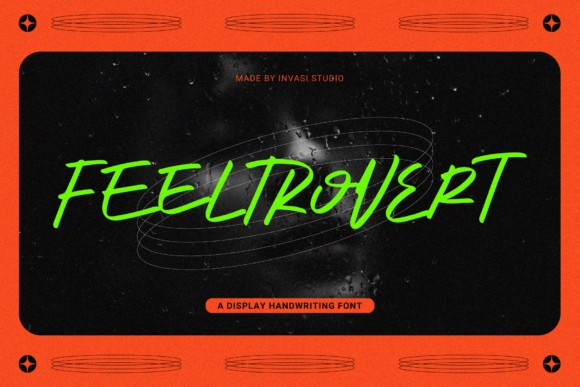
Discover the Perfect Touch with Feeltrovert Font
Have you ever been stuck in front of your computer, staring at a blank page, desperately trying to find the right words to bring your design to life? It’s a feeling many creatives know all too well. But what if you could give your projects that extra oomph, that special something that sets them apart from the rest?
Enter Feeltrovert Font, a stunning and elegant handwritten font that’s guaranteed to add an eye-catching effect to any project. With its stylish and modern glyphs, Feeltrovert Font is the perfect addition to any designer’s toolkit. Whether you’re a seasoned pro or just starting out, this versatile font is sure to help you create designs that truly stand out.
What makes Feeltrovert Font so valuable to designers is its unique ability to add a touch of sophistication and elegance to even the most simple of projects. With Feeltrovert Font, you can create designs that are both modern and timeless, perfect for a wide range of applications.
Feeltrovert Font Key Features
- Unique Characteristics: The Feeltrovert Font features a unique, hand-drawn aesthetic with dynamic lines and subtle texture, making it perfect for creative and artistic applications
Designer Review: Feeltrovert Font
First impressions are everything, and Feeltrovert Font has definitely caught my eye. I love the unique, expressive style that feels both playful and sophisticated. The intricate details and bold brushstrokes evoke a sense of creativity and freedom ✨. The font is perfect for designers looking to add a touch of personality to their projects, and I can see it working beautifully in branding, packaging, and digital design.
However, there are a few limitations to consider ⚠️. The font is not ideal for large blocks of text, as the strokes can become blurry and difficult to read. Additionally, the font may not be suitable for designs that require a lot of precision and accuracy, as the irregularities in the strokes can make it challenging to achieve a clean, even look.
Overall, I’m impressed with Feeltrovert Font’s unique style and potential for adding a touch of whimsy to designs. While it may have its limitations, it’s definitely a font that stands out from the crowd ✨. I would recommend it for designers who want to add some personality and flair to their work.
- Unique, expressive style
- Perfect for branding, packaging, and digital design
- Not ideal for large blocks of text
- May not be suitable for designs requiring precision and accuracy
Tips for Getting the Most Out of Feeltrovert Font
Feeltrovert Font is perfect for creative and artistic projects. To get the most out of it, try combining it with bold colors and unique graphics. You can also experiment with different font sizes and styles to add emphasis and visual interest.
Feeltrovert Font is ideal for creative projects such as:
– Blog posts
– Infographics
– Branding materials
– Digital art
Alternatives to Feeltrovert Font for Designers
Pacifico Font is a beautiful, elegant script font that’s perfect for adding a touch of sophistication to your designs. It’s ideal for use in invitations, branding, and packaging. Pacifico Font has a similar feel to Feeltrovert Font, but with a more refined and classic look.
Comparison to Feeltrovert Font: Pacifico Font is more polished and refined, while Feeltrovert Font has a more playful and whimsical feel.
Great Vibes Font is a modern, elegant script font that’s perfect for use in branding, packaging, and advertising. It has a similar feel to Feeltrovert Font, but with a more modern and trendy look.